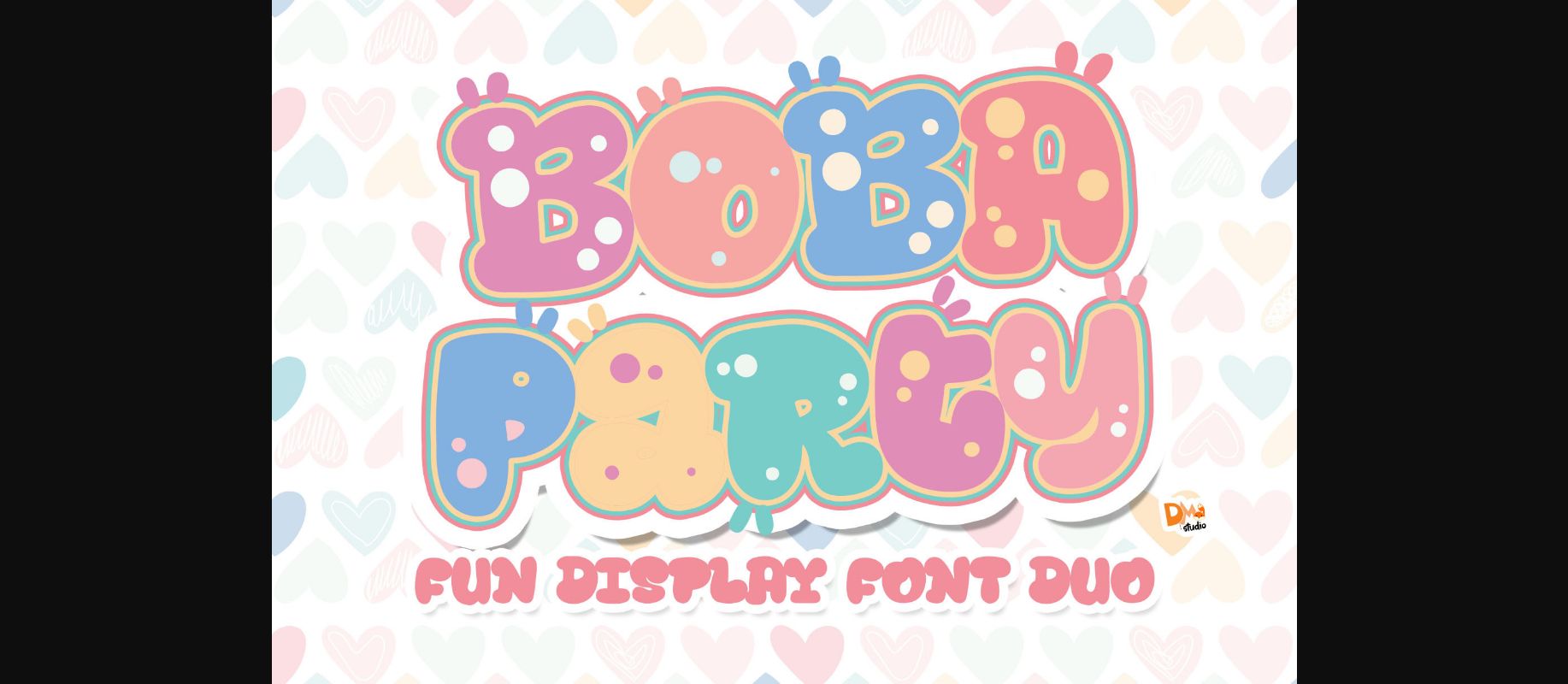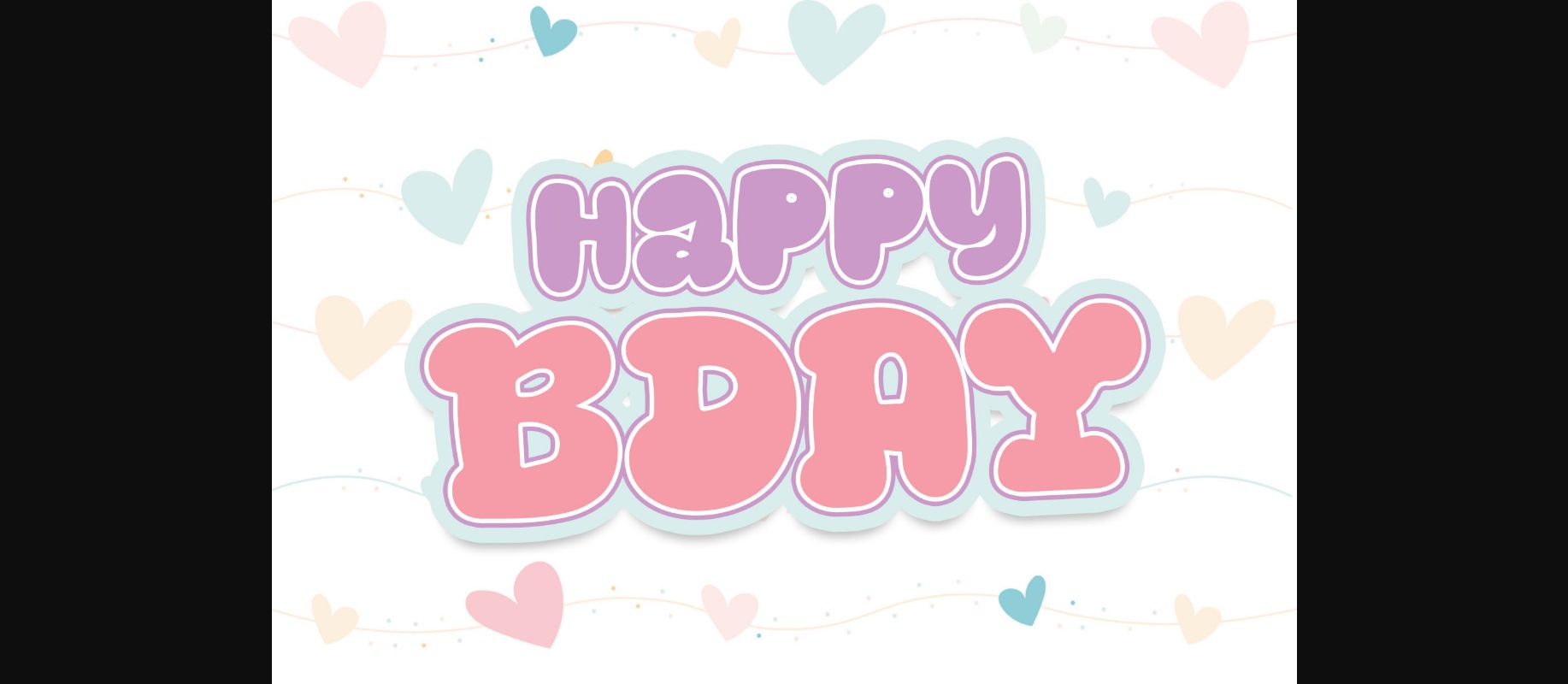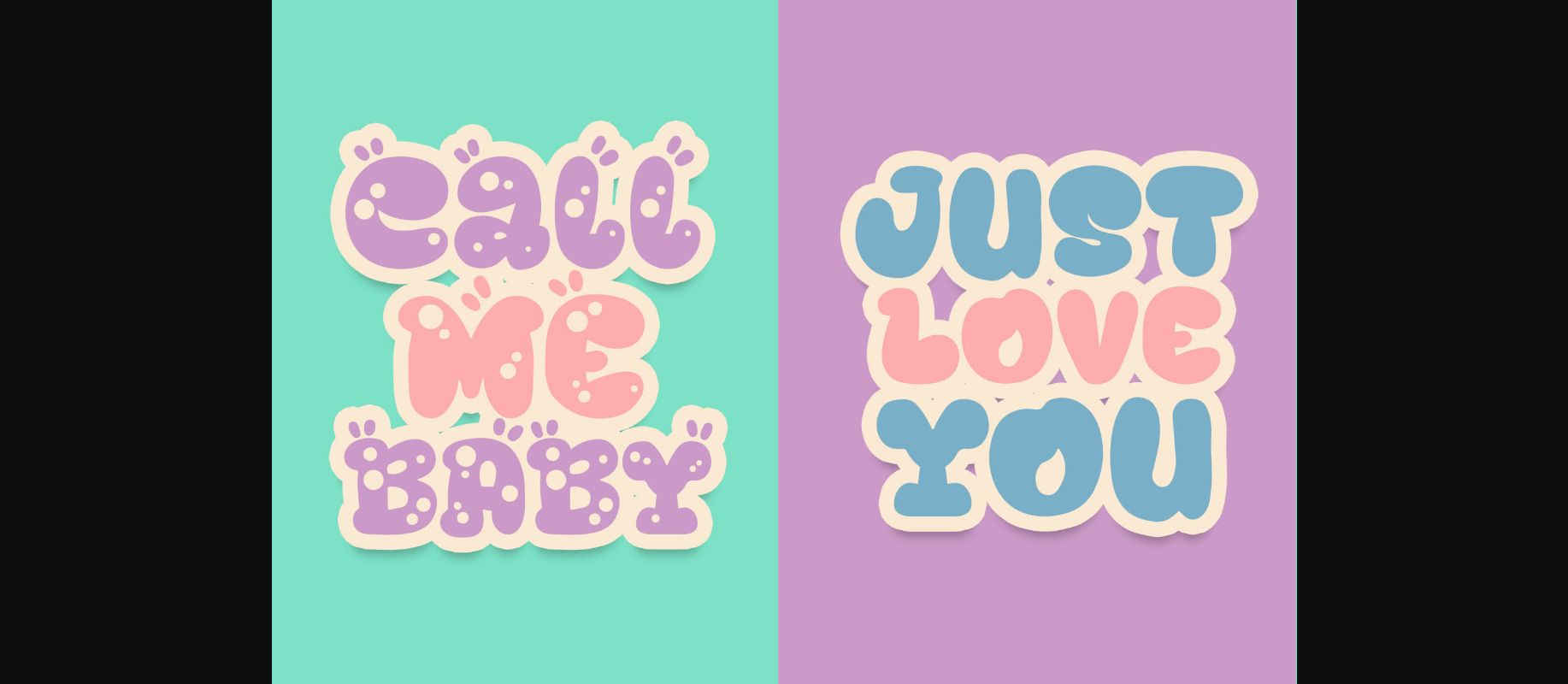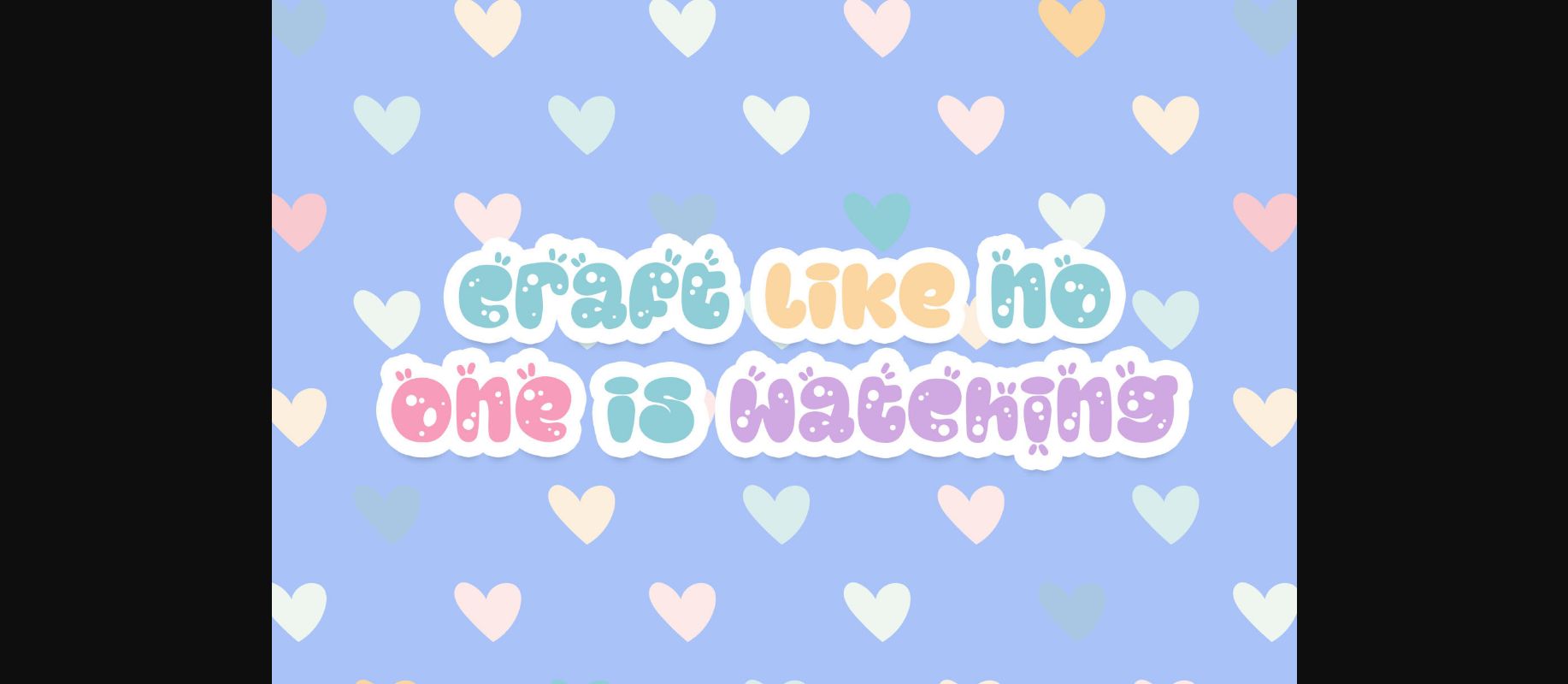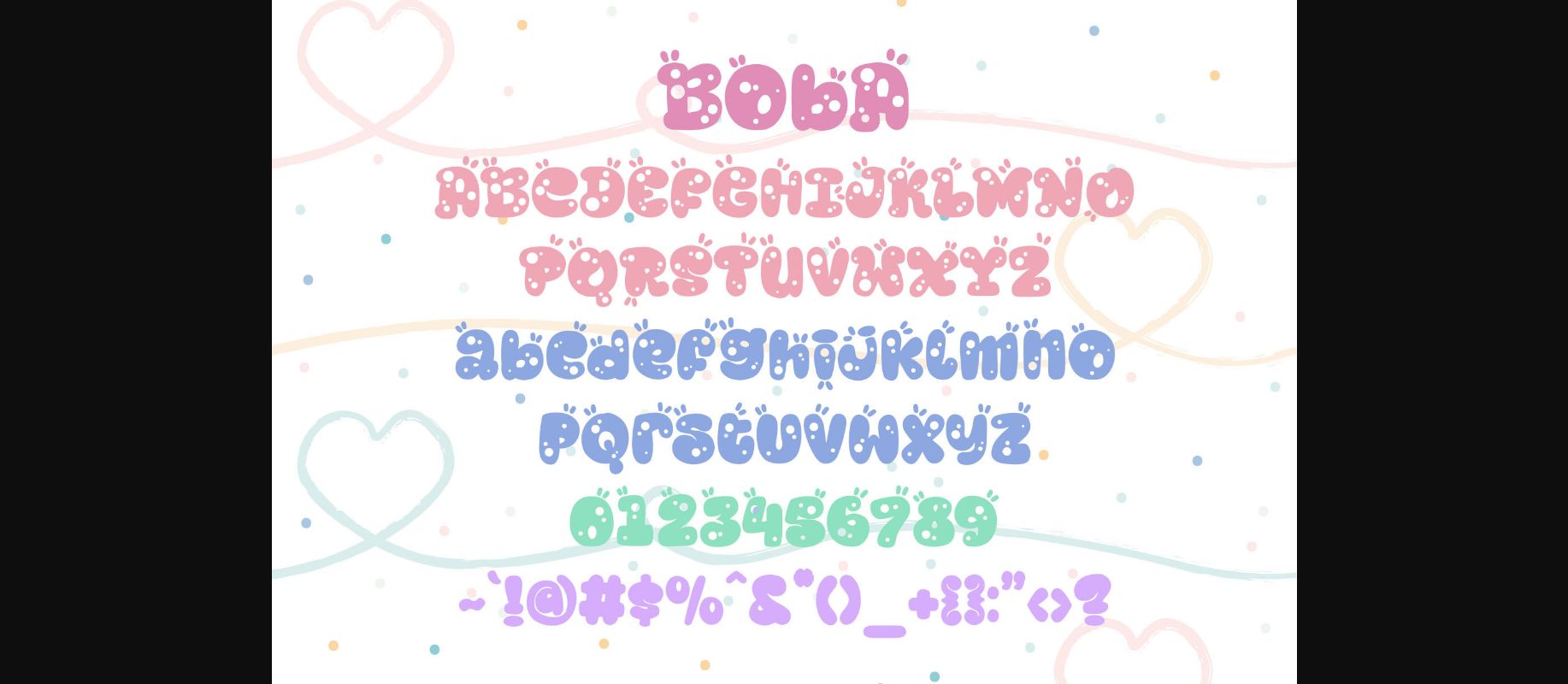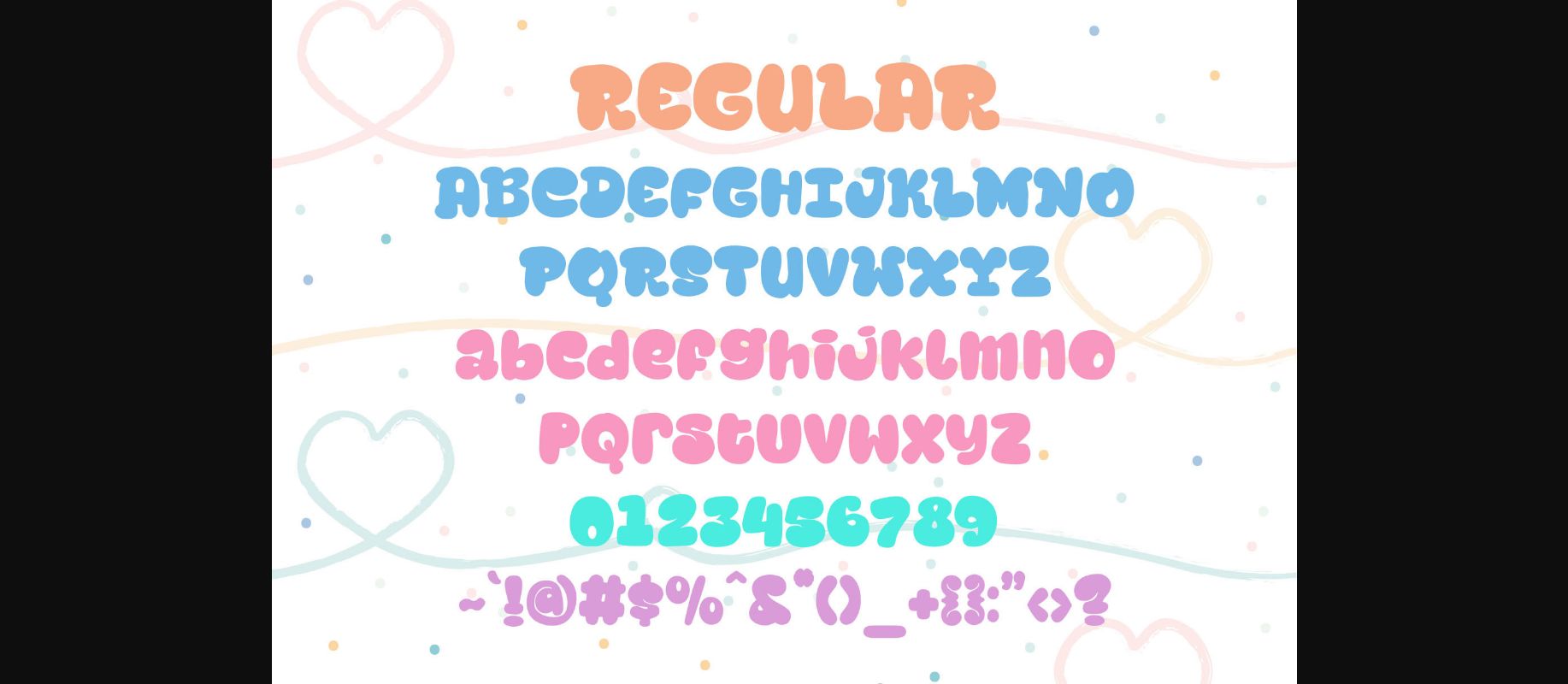
Boba Party Font
About Boba Party Font
Boba Party is a cute, fun and bubbly decorative font. This original look will appeal to a wide range of crafty ideas, from letterheads and titles, to stationery.